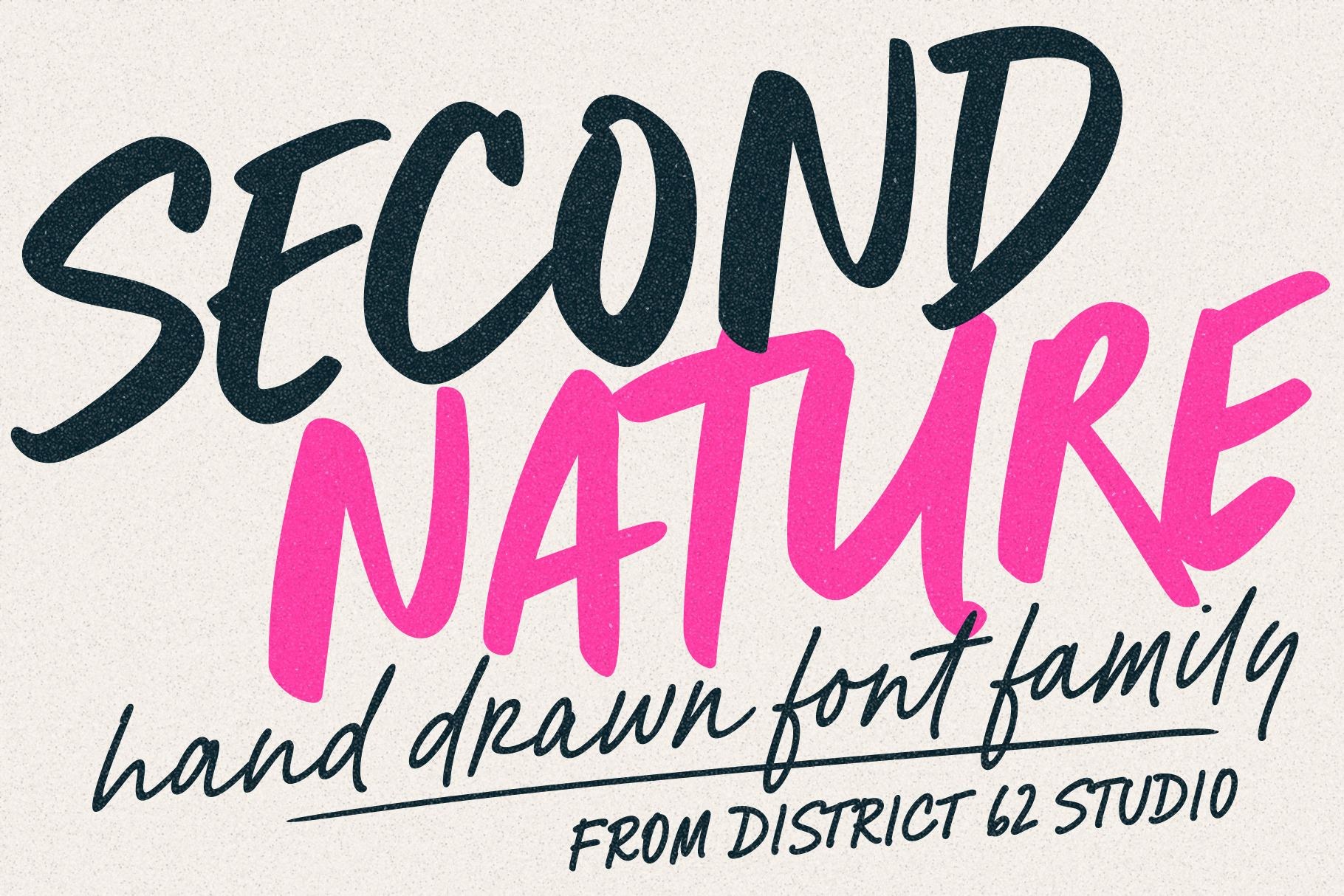
SECOND NATURE Font Collection
Second Nature — Hand-Drawn Font Family, 18 Styles
Second Nature is a modern hand-drawn font family with 18 styles. Made for bold branding, packaging, logos, editorial layouts, social graphics, merch, signage, and type-driven design.
A Complete Brand System The family is built from three coordinated parts: a versatile brush script, a loose hand-lettered display style, and a bolder all-caps companion. Together they give designers a flexible toolkit for work that needs energy, personality, and a custom-lettered feel — for food packaging, hotel branding, posters, menus, labels, campaigns, social graphics, and expressive brand identities.
The Display Style A fresh, modern take on hand-lettered marker type. Loose, expressive, and easy to use, it includes alternate letterforms throughout so words feel more natural, varied, and custom-built. Bold enough for logos and packaging, polished enough for contemporary branding, editorial layouts, and type-led campaigns.
The Script Family Five weights for better optical control across different sizes and uses, from delicate secondary text to bold headline moments. Rounding out the system, a bolder all-caps style — with its own matching italic — is especially useful for stacked typography, subheads, badges, and lively brand details.
Built-In Character With extensive alternates throughout, Second Nature helps you create lettering that feels custom, imperfect in the right ways, and alive on the page. Use the alternates to avoid repeated letter shapes, build more natural wordmarks, and bring a handmade rhythm to your typography without starting from scratch. Use the Script styles for loose, handwritten notes and casual headlines, the Display styles for punchier poster lettering and packaging copy, and the Caps style when you need extra impact.
Second Nature has the charm of real hand lettering with enough range to build complete layouts: big expressive headlines, smaller supporting copy, menu boards, badges, stickers, thank-you cards, product packaging, and playful brand moments.
Designed for designers, brand builders, illustrators, packaging studios, and creative teams, Second Nature is flexible enough for polished editorial work and playful enough for restaurants, cafes, bars, hotels, shops, music graphics, fashion campaigns, merch, and lifestyle brands.